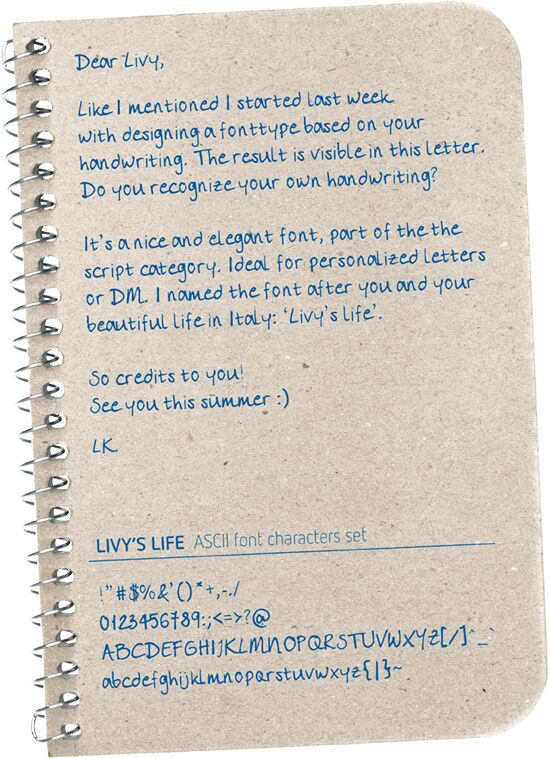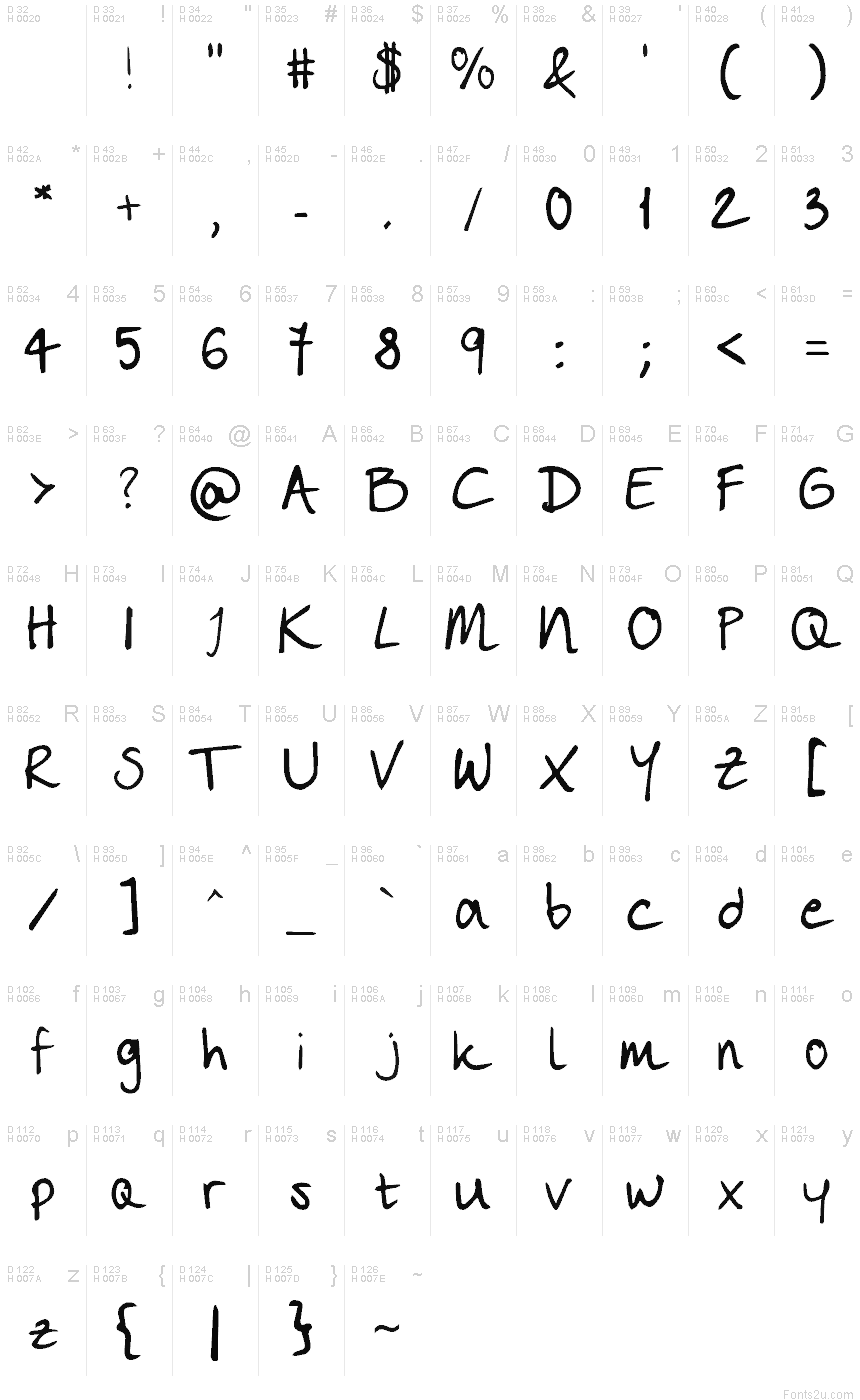
Livy'slife
This font is created and dedicated to my vriend Livy in Italy. Her handwriting inspired me to design this font. It can be used for personalized mailings, letters and forms. Enjoy!